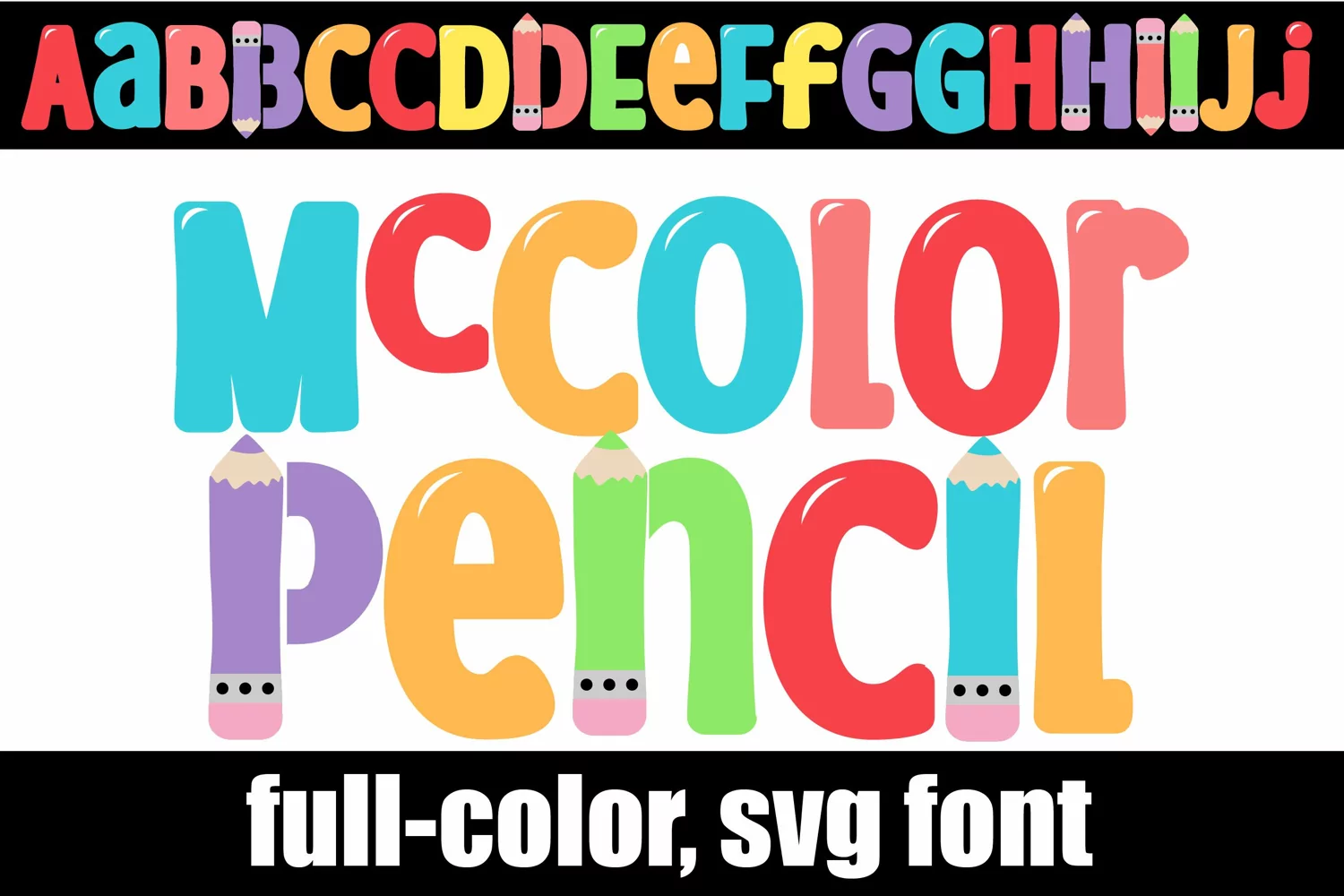
McColor Pencil
This full-color font features youthful "pencil-inspired" lettering in pretty spring/pastel colors. There is an alt version you can access through your system's character map that contains additional colors of all the letters.